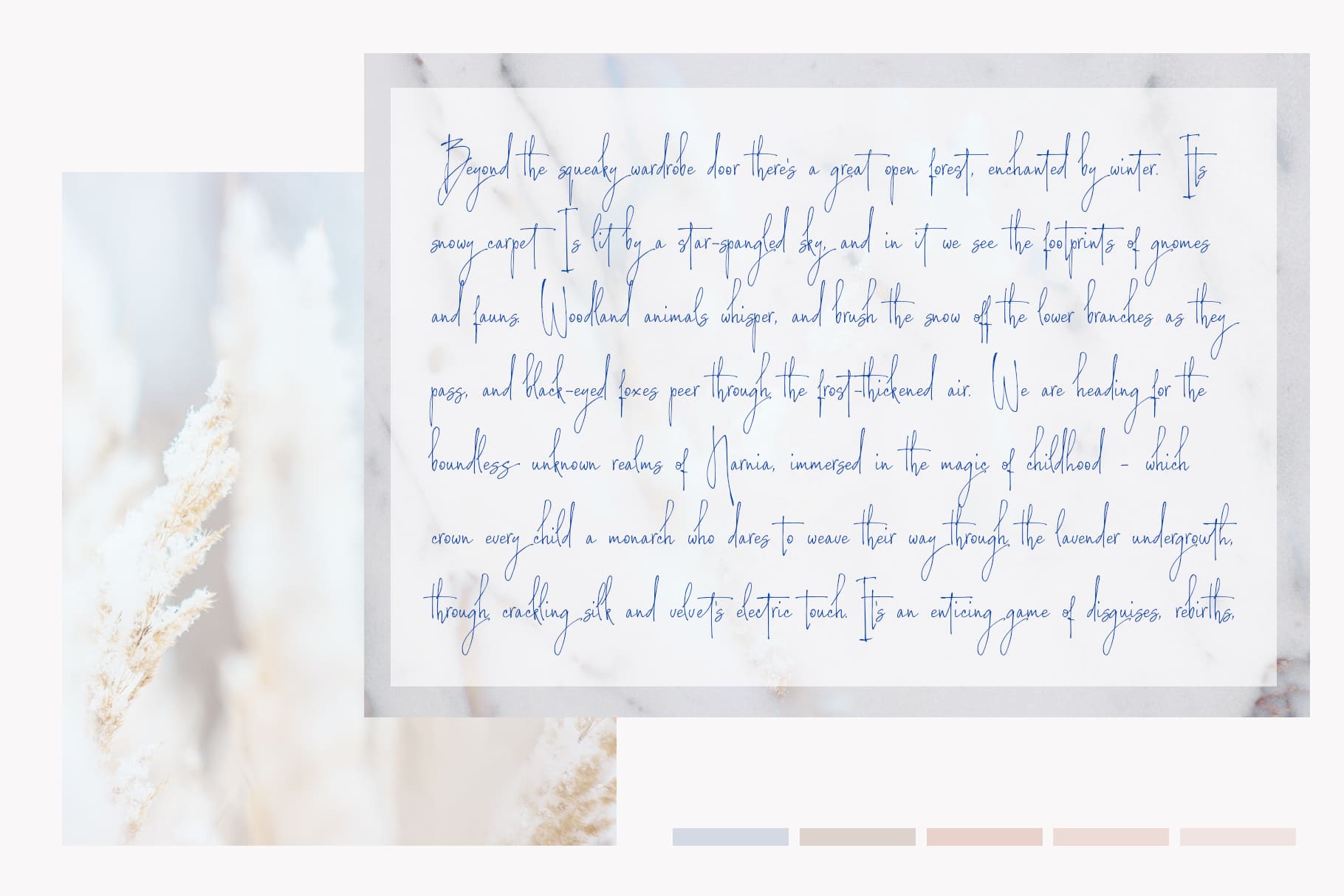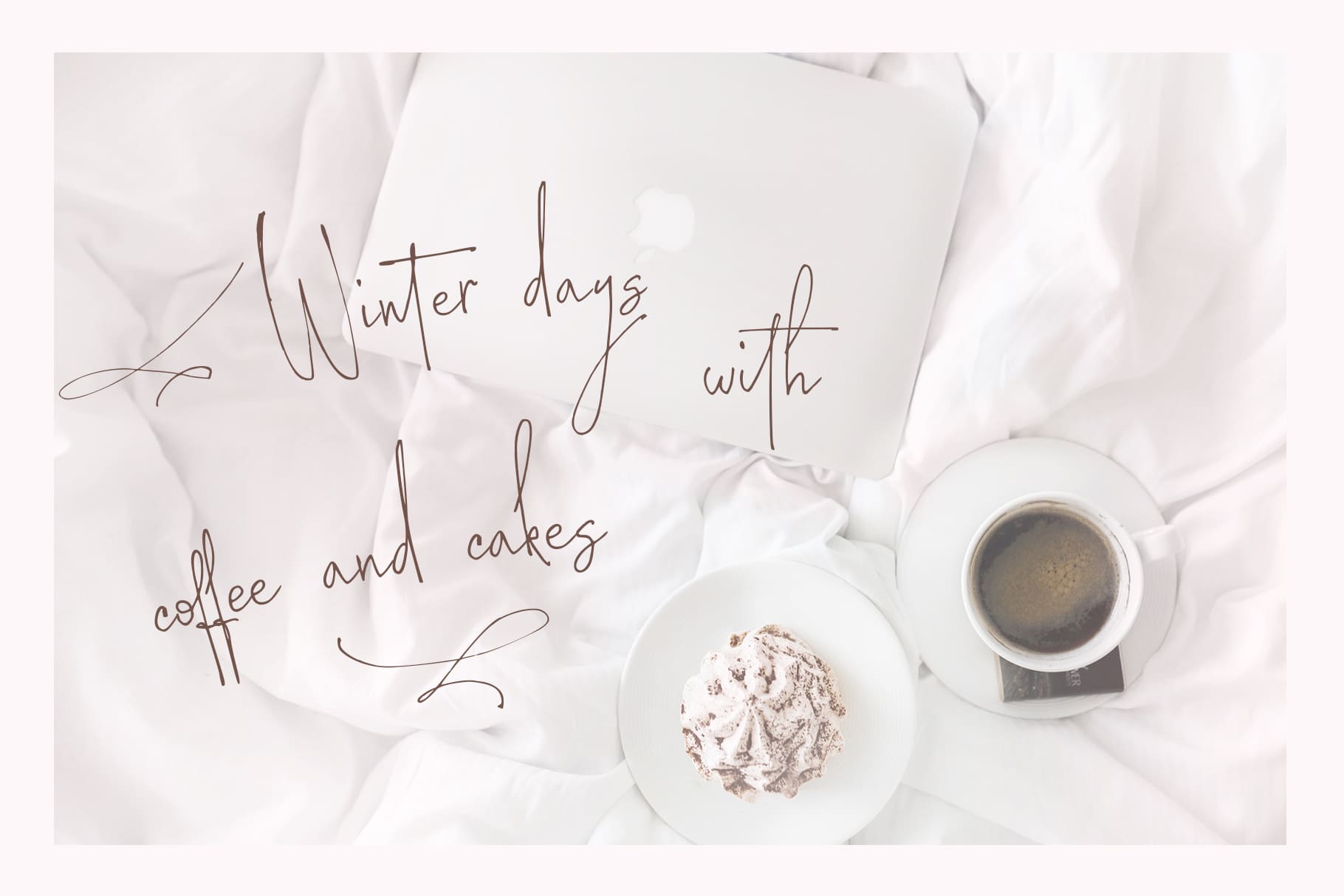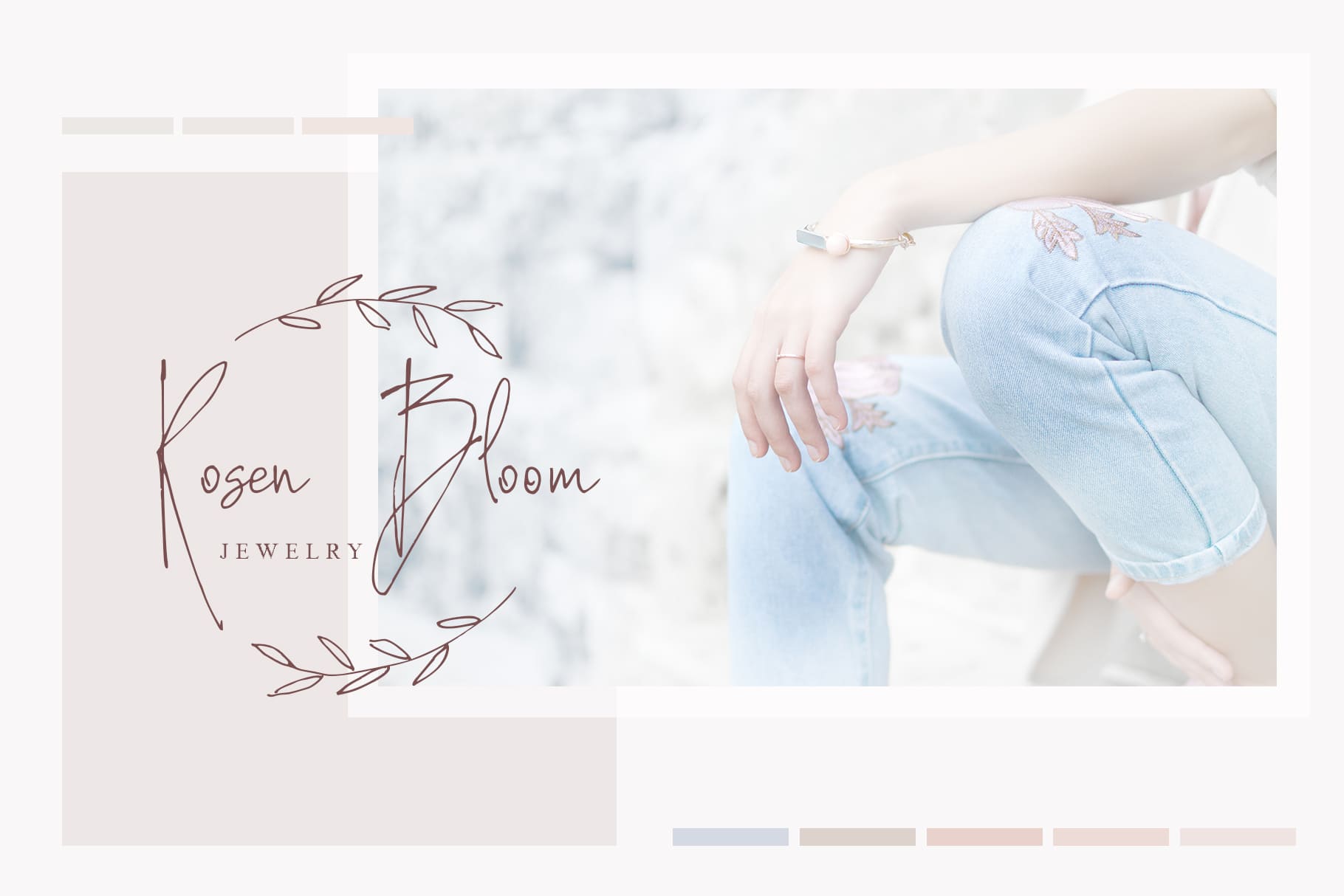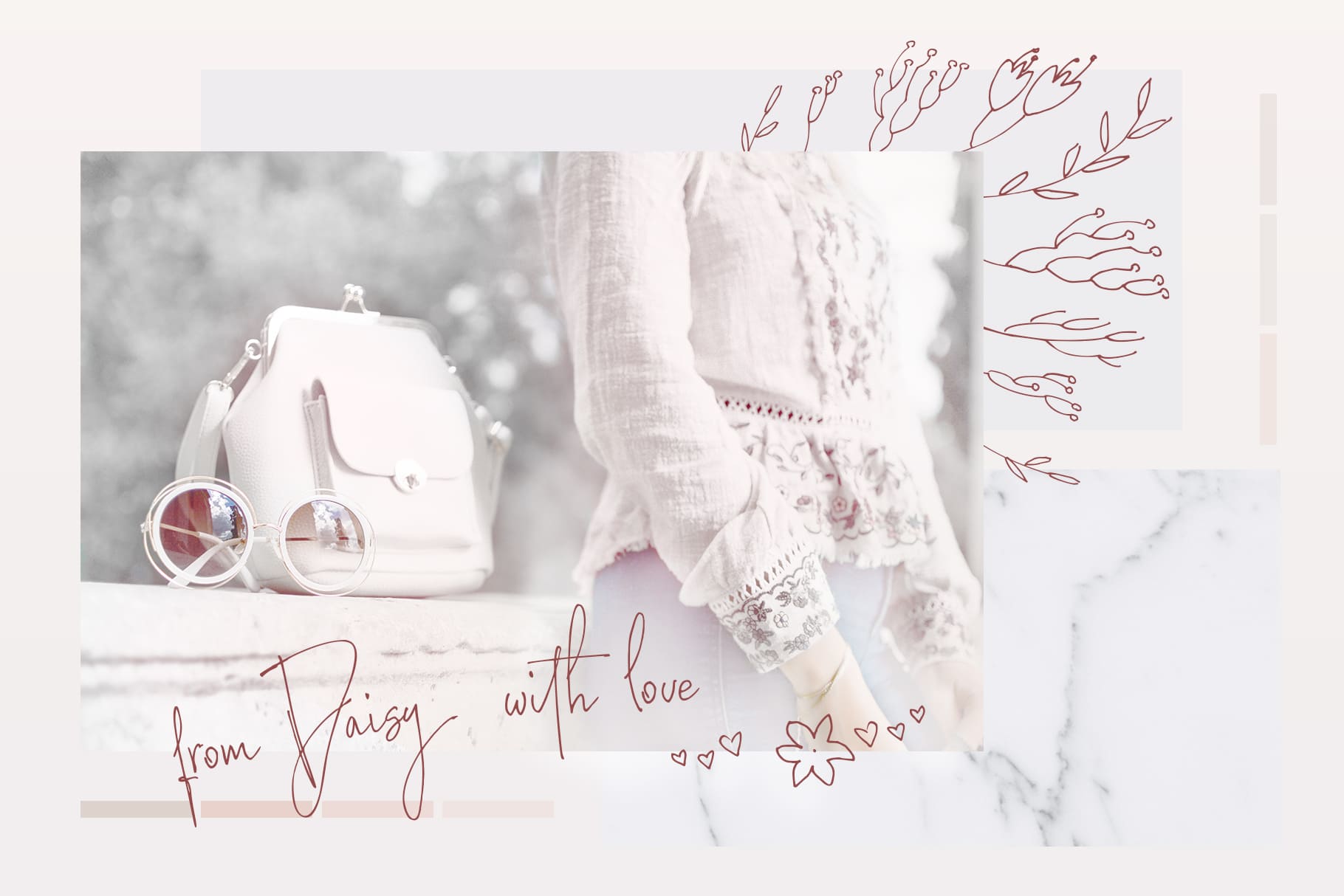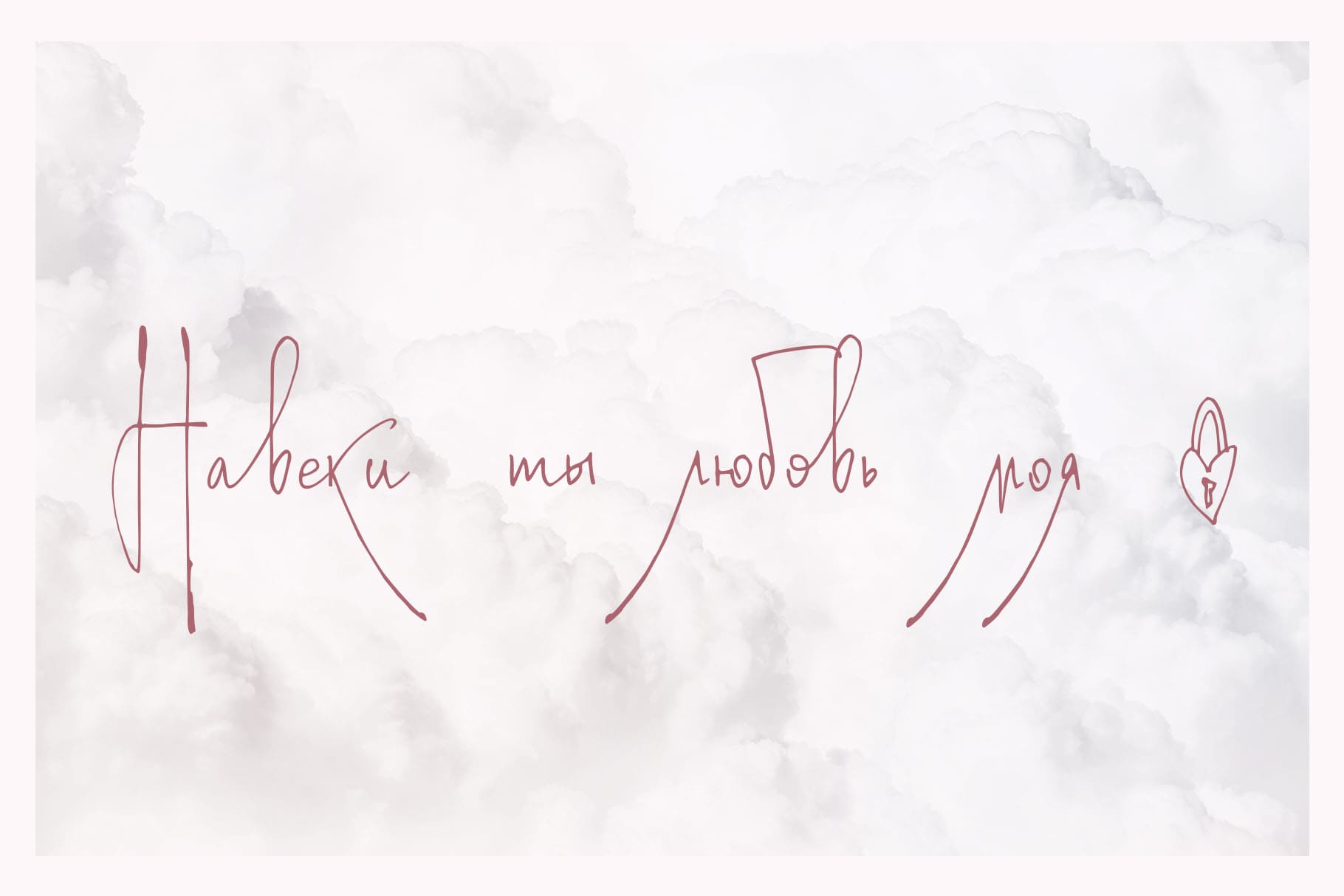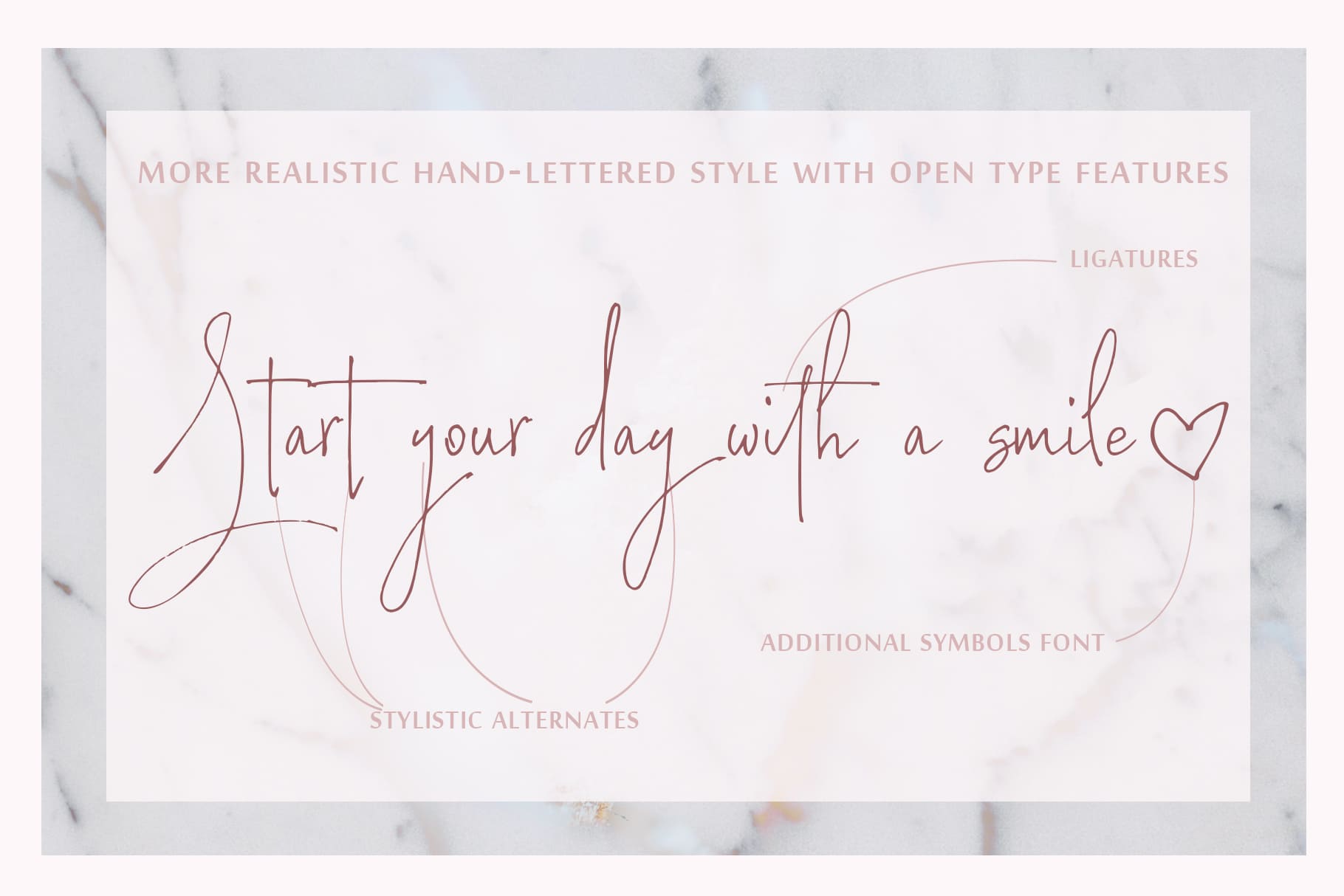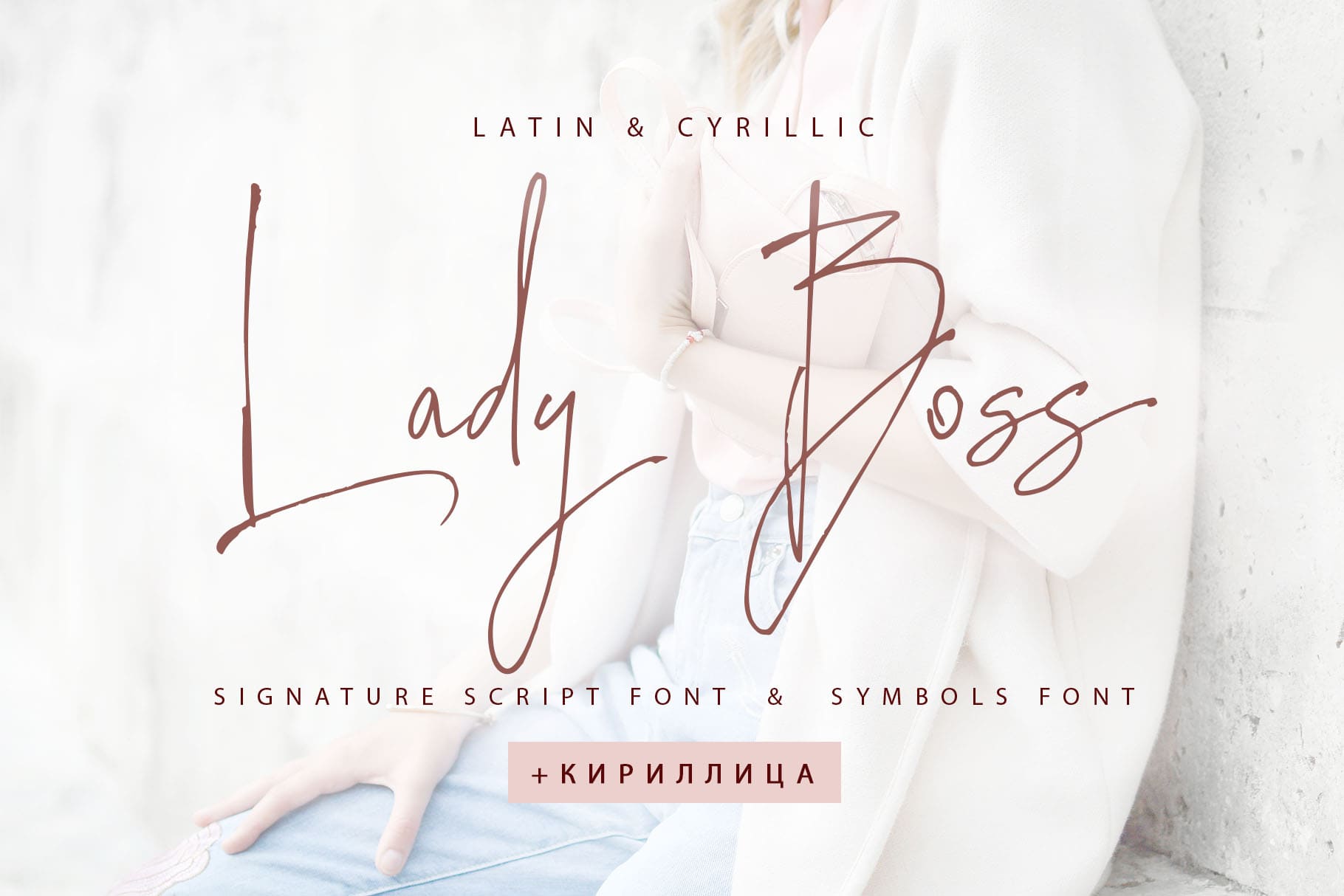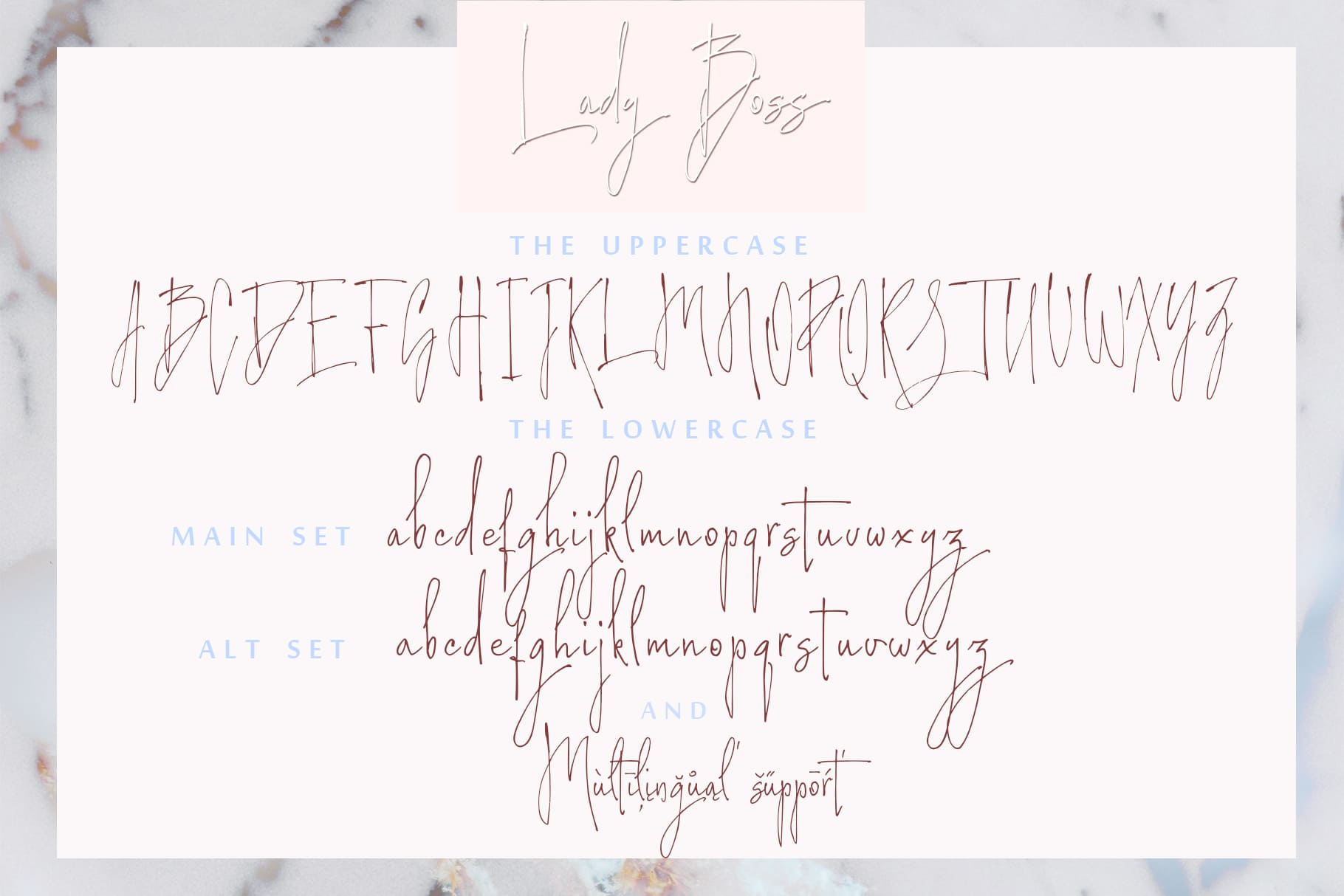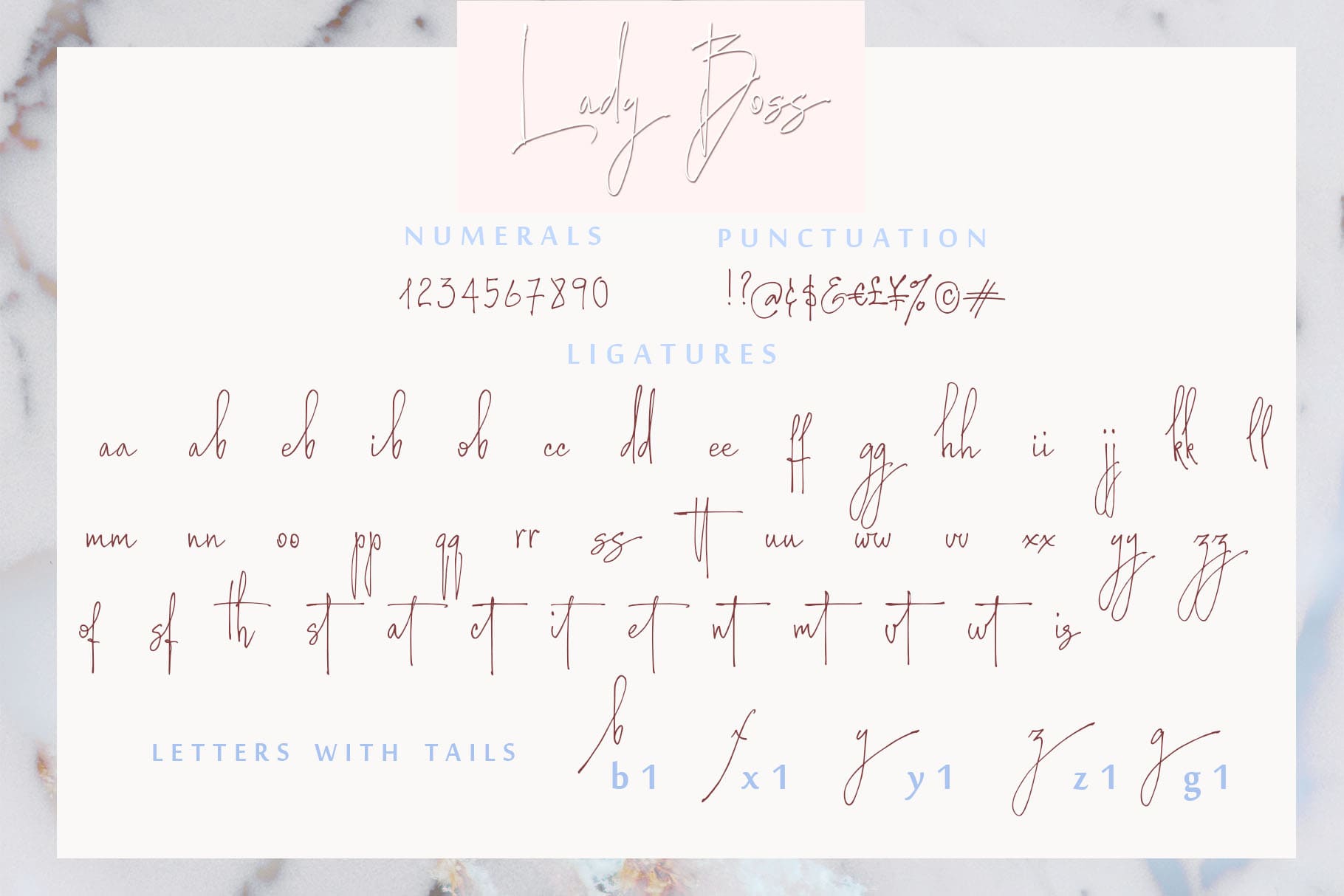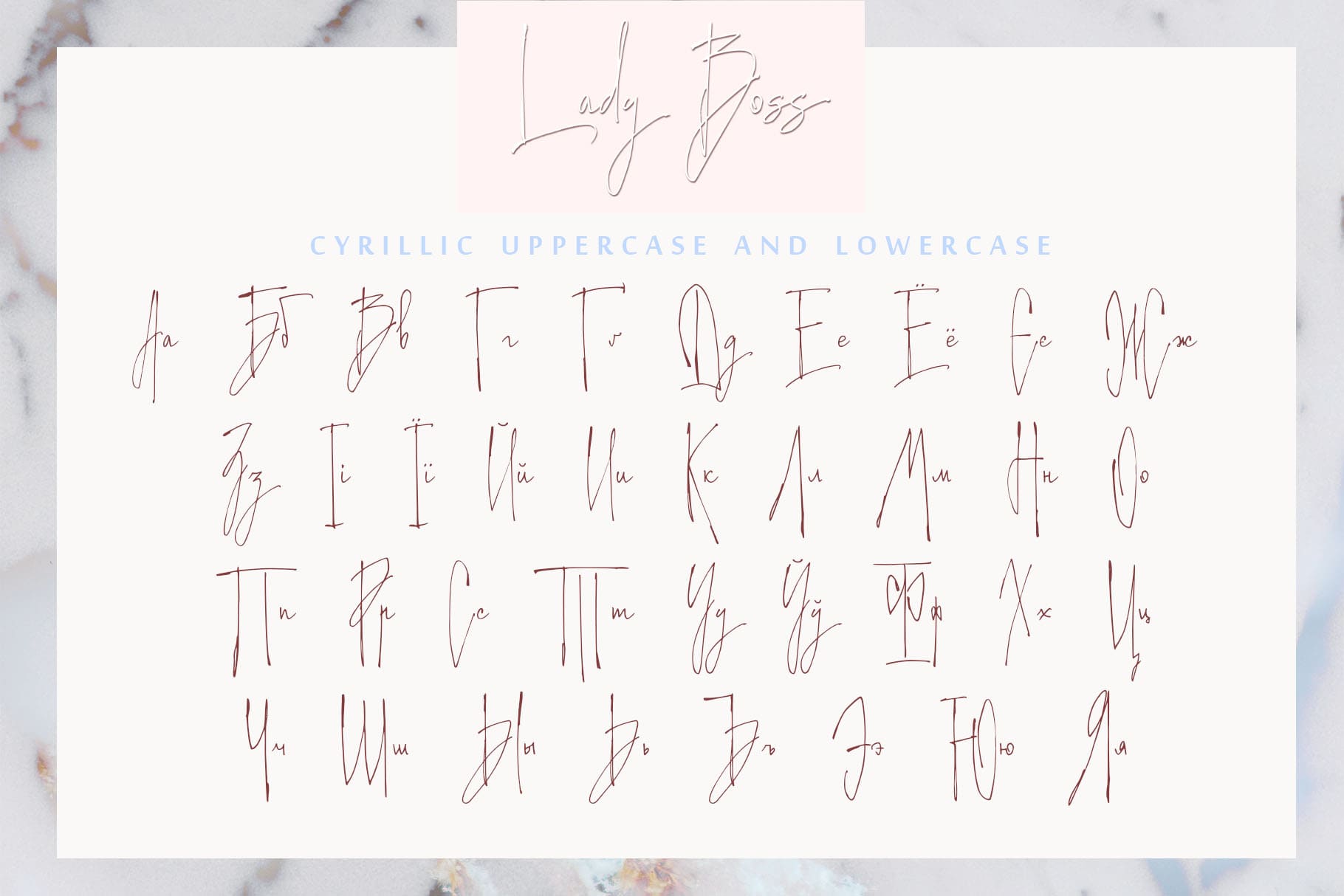
Lady Boss Cyrillic Script (2 fonts)
Lady Boss Cyrillic Script includes a full set of gorgeous uppercase characters and 2 sets of lowercase letters, numerals, and a large range of punctuation and 42 ligatures, giving you a realistic hand-lettered style.
Extensive language support included for Western, Central, and South Eastern European countries. Multilingual Support for 27 languages: Afrikaans, Albanian, Basque, Bosnian, Catalan, Danish, Dutch, English, Estonian, Faroese, Filipino, Finnish, French, Galician, Indonesian, Irish, Italian, Malay, Norwegian Bokmål, Portuguese, Slovenian, Spanish, Swahili, Swedish, Turkish, Welsh, Zulu.
Cyrillic glyphs support for Russian, Belorussian, Bulgarian, and Ukrainian languages.